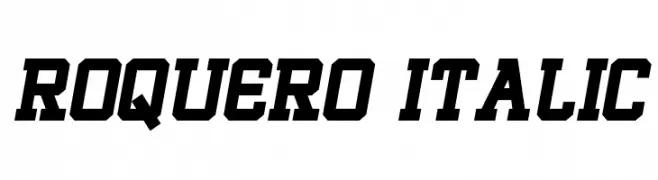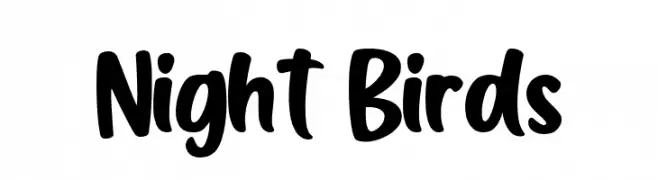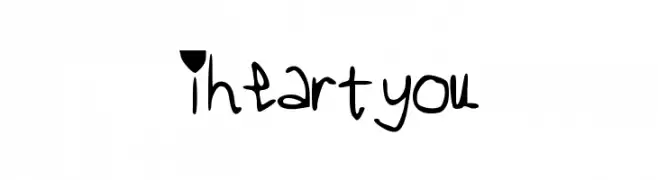
A bold, playful font with thick, rounded characters and a whimsical style.
A bold, italicized font with thick strokes and a geometric design.
Cartoonish, hand-drawn font with each character as a unique illustrated face.
A bold, flowing script font with a handwritten appearance.
A bold, outlined font with a playful and engaging style.
A bold, playful font with rounded, bubble-like characters.
A bold, italic font with a playful, digital style and consistent stroke thickness.
A bold, playful handwritten font with rounded, smooth letterforms.
A playful, handwritten font with heart motifs and whimsical strokes.
A playful collection of cartoonish alien faces, each with unique expressions.